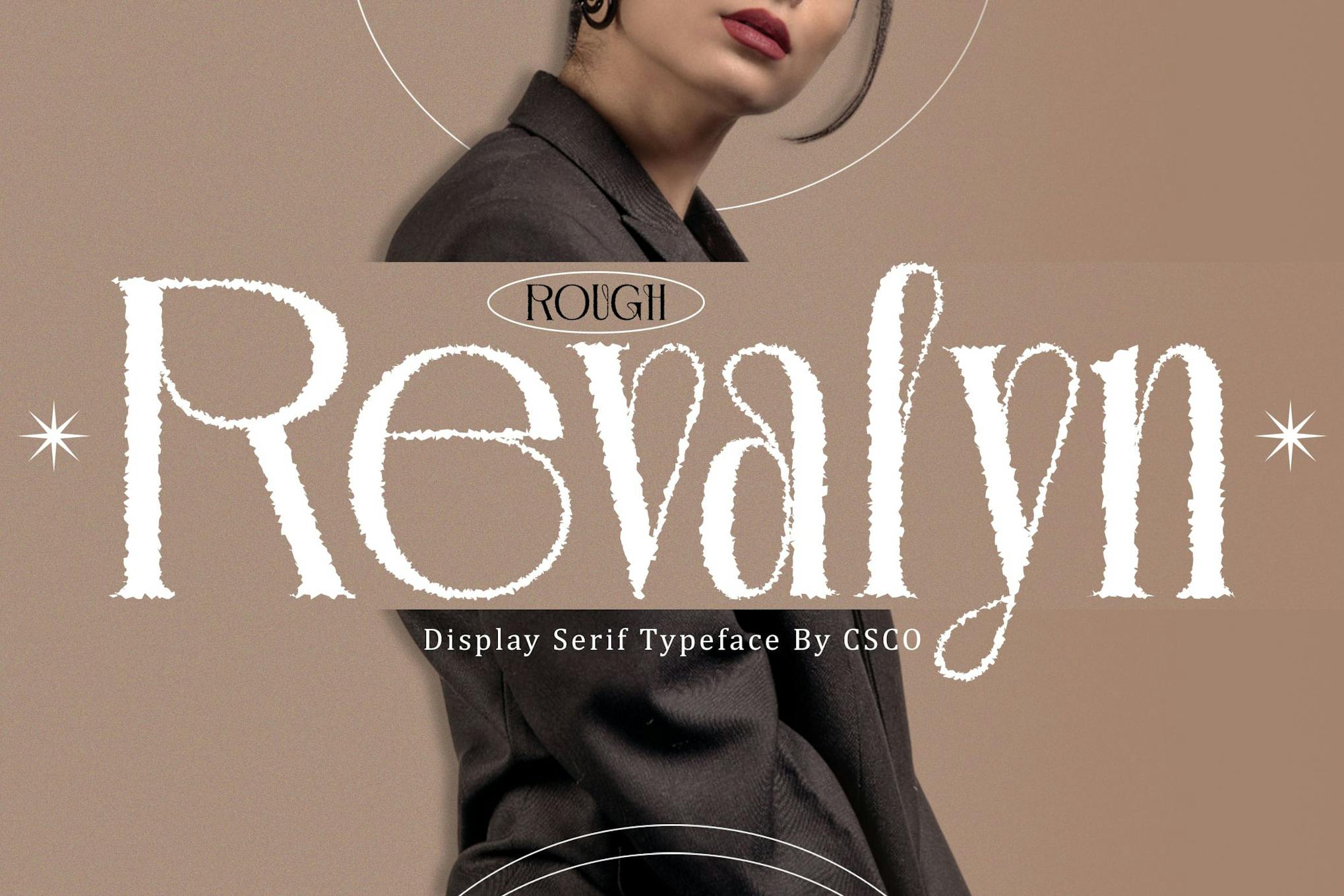
Revalyn Rough Font
Perfect for vintage branding, poster designs, apparel prints, packaging, and social media visuals.
The Revalyn Rough Font excites designers with its gritty texture, distressed brush strokes, and bold handcrafted vibe that instantly adds character and edge to any project.
The Revalyn Rough Font Free Download is a powerful typeface crafted to give your designs a raw, authentic look. Its rough, textured edges and dynamic strokes create a striking visual impact perfect for brands that want to stand out with a vintage or grunge aesthetic. Whether you're designing apparel graphics, posters, or packaging, Revalyn Rough delivers a bold statement.
One of the key strengths of Revalyn Rough Font is its perfect balance between rugged texture and legibility. Despite its distressed style, it remains clear and effective for headlines, logos, and display text, ensuring your message is loud and clear.
In branding, Revalyn Rough conveys authenticity, strength, and artistic flair. It pairs beautifully with earthy colors, vintage textures, and handcrafted visuals, helping brands build a genuine connection with their audience.
For digital use, this font enhances social media posts, website banners, and marketing materials with its unique, textured style. Its bold character ensures your digital content stands out with personality and impact.